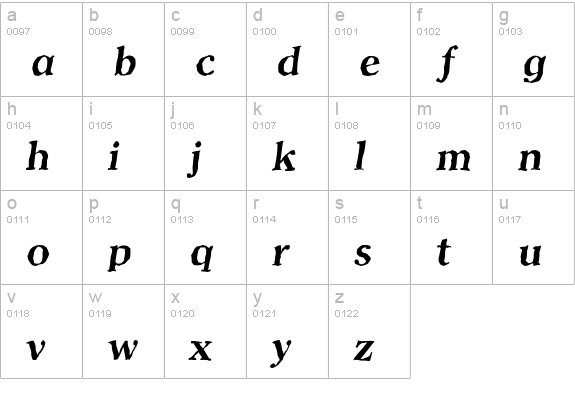
ClearfaceAntique-BoldItalic Font Details
ClearfaceAntique-BoldItalic is a classic and elegant serif font that exudes sophistication and timelessness. With its bold and italic design, this font commands attention and makes a bold statement in any project. The sharp serifs and clean lines of ClearfaceAntique-BoldItalic give it a refined and polished look, perfect for adding a touch of class to any design. This versatile font is ideal for a wide range of applications, from editorial design to branding and marketing materials. Whether you're designing a logo, creating a brochure, or working on a poster, ClearfaceAntique-BoldItalic will elevate your design and make it stand out. Best of all, ClearfaceAntique-BoldItalic is available for free download at FontsMarket.com. This means you can easily access this high-quality font and use it in your projects without any cost. Don't miss out on the opportunity to enhance your designs with the timeless elegance of ClearfaceAntique-BoldItalic.